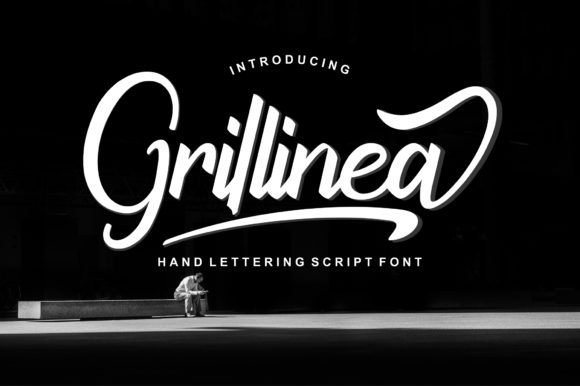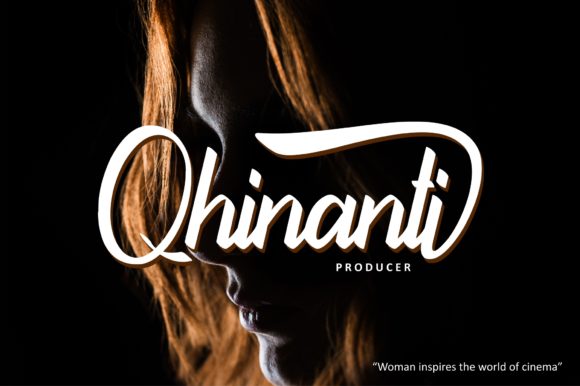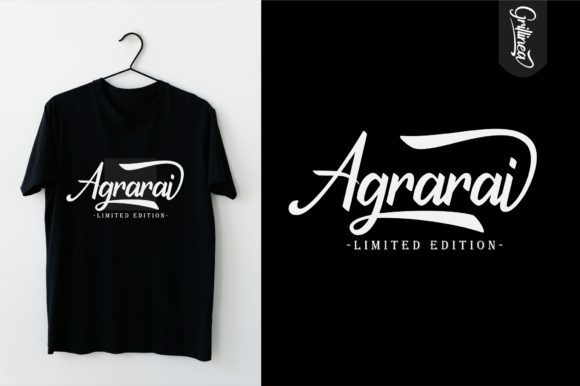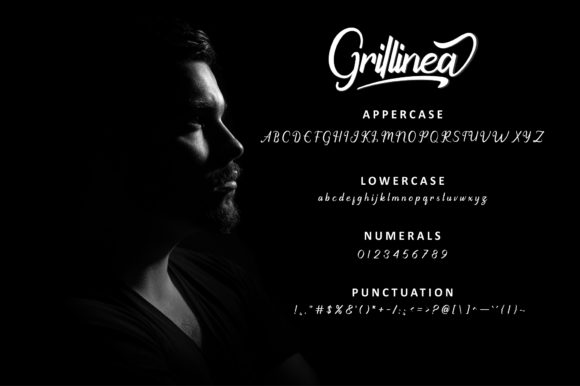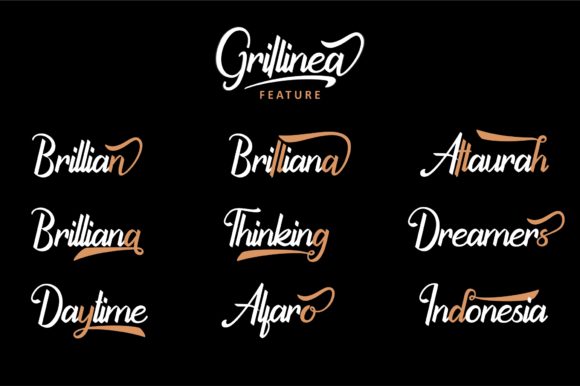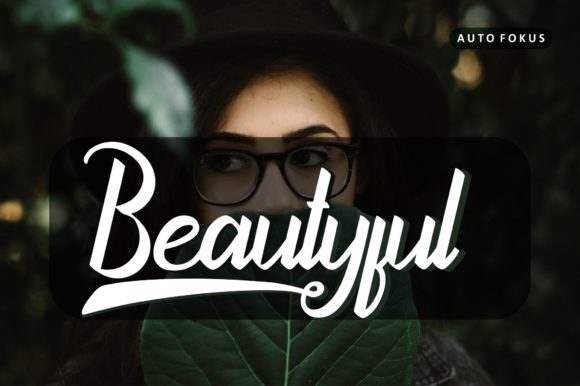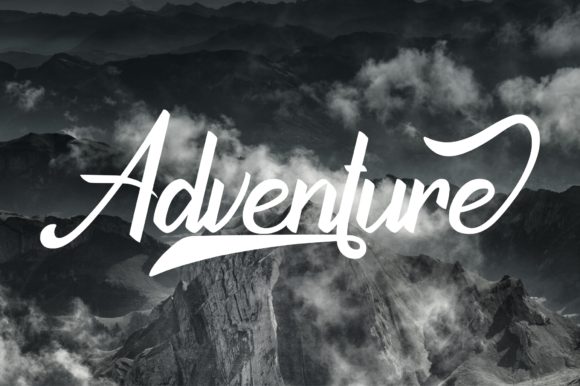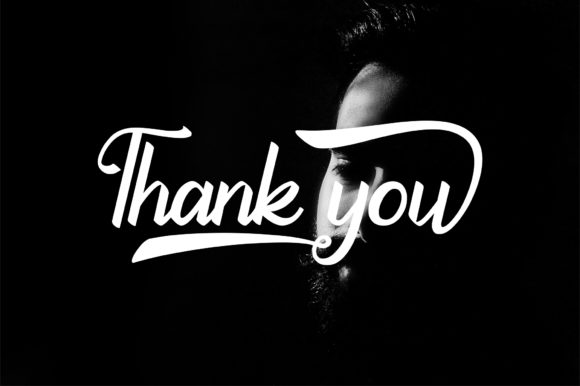
HomeScript FontsGrillinea Font Script Fonts Grillinea Font FacebookXPinterestWhatsApp Grillinea Font Poster 2 Grillinea Font Poster 3 Grillinea Font Poster 4 Grillinea Font Poster 5 Grillinea Font Poster 6 Grillinea Font Poster 7 Grillinea Font Poster 8 About Grillinea Font Grillinea is a striking and cool handwritten font with a powerful feel. Get inspired by its authentic charm! DOWNLOAD NOW People also explored Walnut Mermaid Duo Font Scrotnig Bellezza Font Summer Ground Font Gnomes Font Reginy Font Reverse Font Better Moods Vintage Font 323 0 TagsGrillinea Font Previous articleMorrie Swiss FontNext articleEmely Font LEAVE A REPLY Cancel reply Comment: Please enter your comment! Name:* Please enter your name here Email:* You have entered an incorrect email address! Please enter your email address here Website: Save my name, email, and website in this browser for the next time I comment. Personal Use Free Charlie Personal Use Free Read more about this font Harshita Personal Use Free Read more about this font Anti Personal Use Free Read more about this font Williana Personal Use Free Read more about this font BLOG Best Fonts for YouTube Videos: Make Your Thumbnails Stand Out Best Fonts for YouTube Videos: Make Your Thumbnails Stand Out Choosing the right font can make a massive difference in how your YouTube videos perform.... Top 10 Handwritten Fonts That Elevate Your Designs How to Install and Use Fonts on Windows, macOS, and Web Projects To increase your work productivity, choose the most readable fonts.